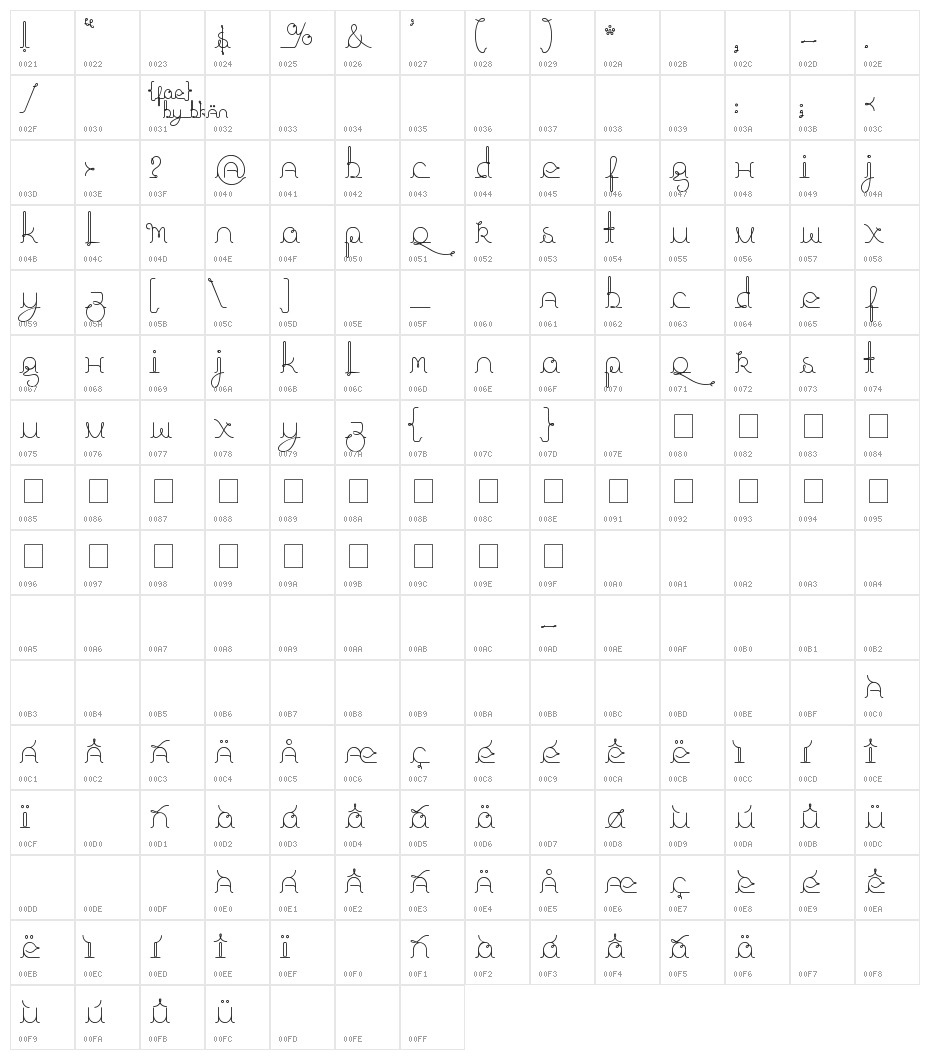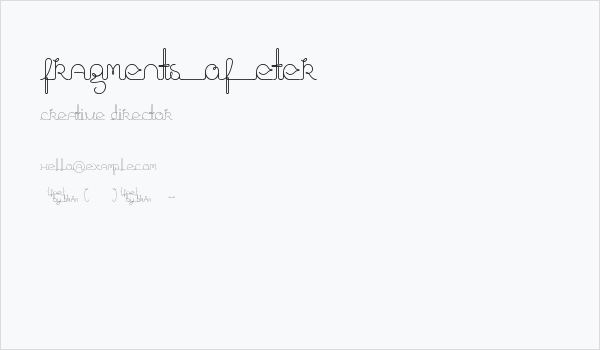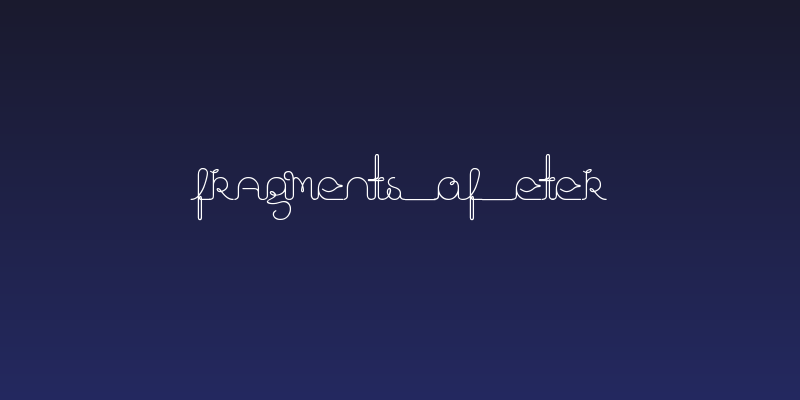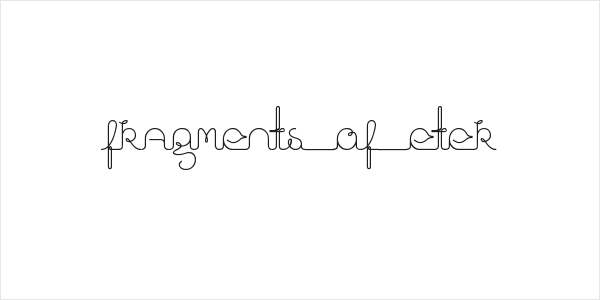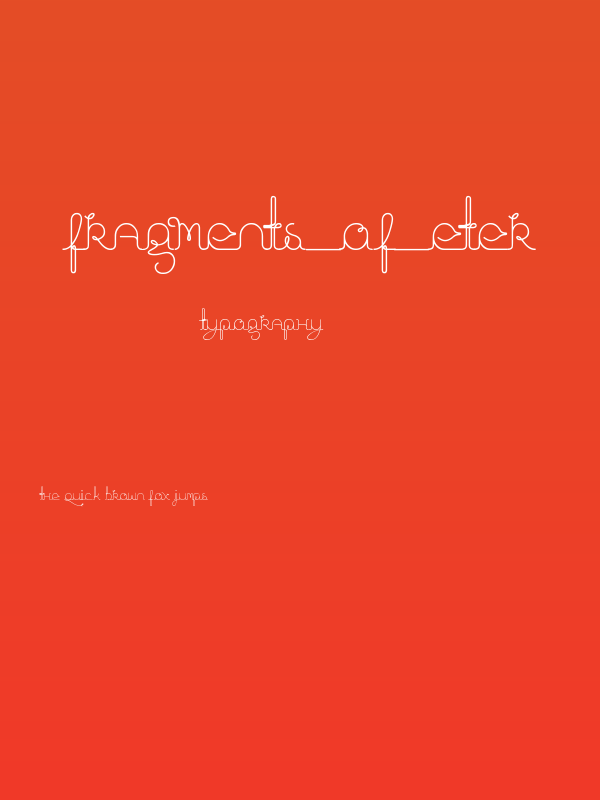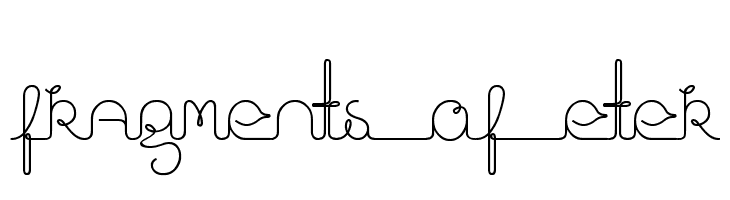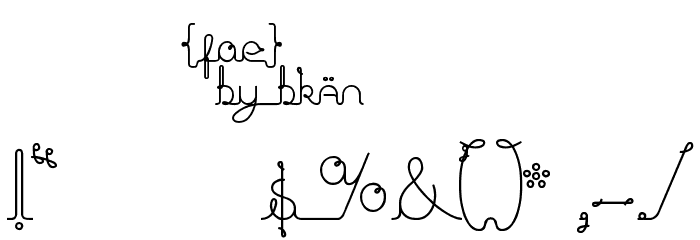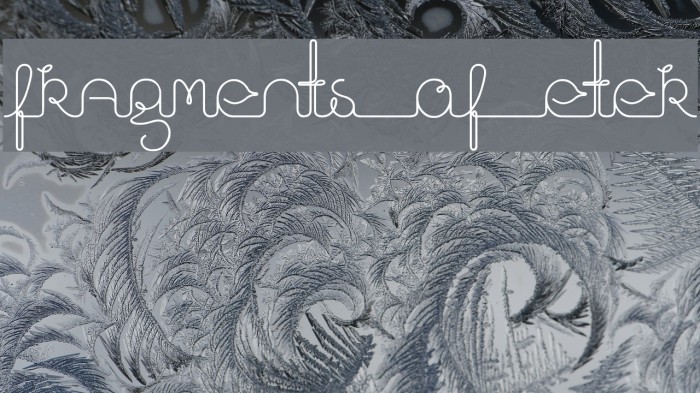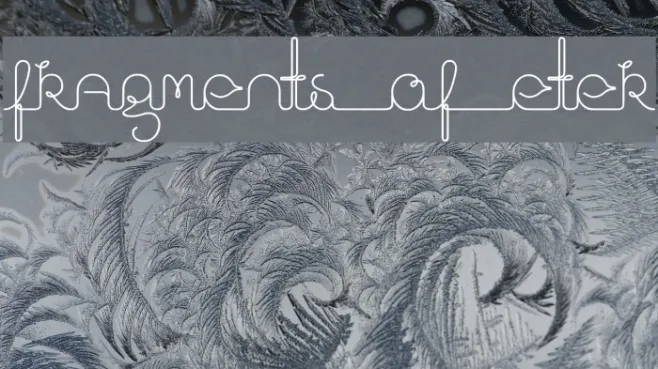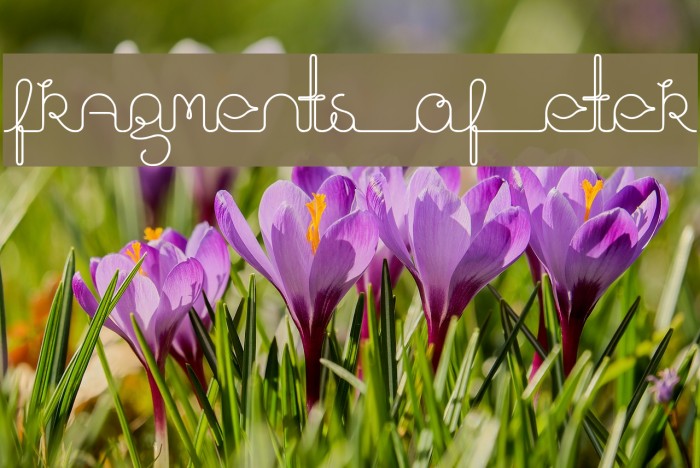
fragments_of_eter Font
fragments_of_eter Description
This font features a unique and artistic design with a continuous, flowing line style that creates a sense of movement and elegance. Each character is intricately connected, resembling a series of loops and curves that give it a whimsical and decorative appearance. The font maintains a consistent stroke width throughout, contributing to its cohesive look. The overall design is playful yet sophisticated, making it suitable for creative and artistic projects. The characters are well-spaced, ensuring readability while maintaining the font's distinctive style.
| Proposed Projects | Ideal for artistic projects, invitations, branding, and creative logos. |